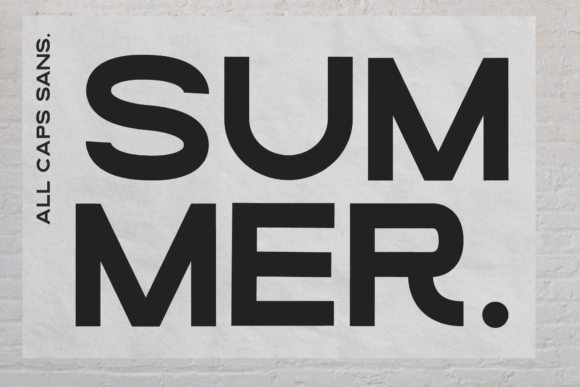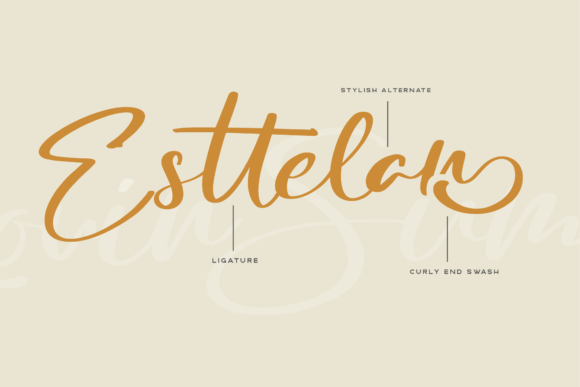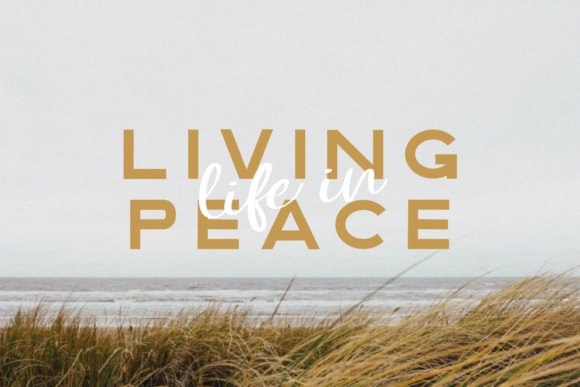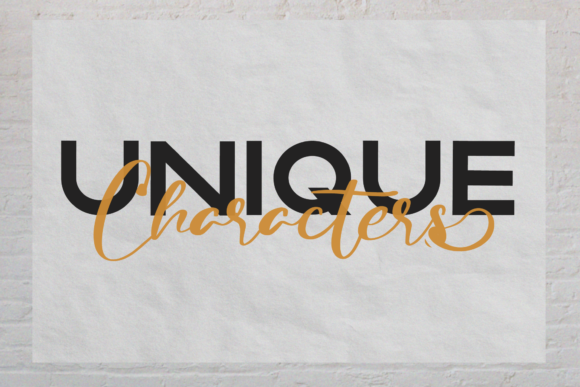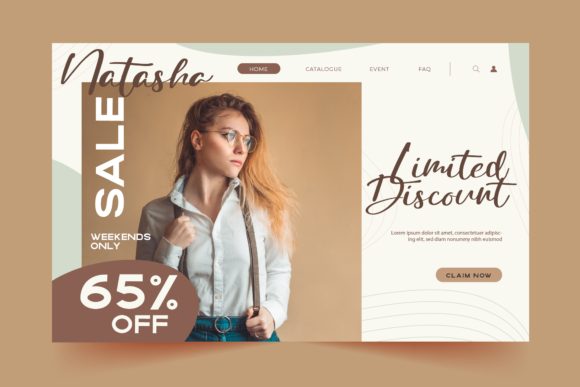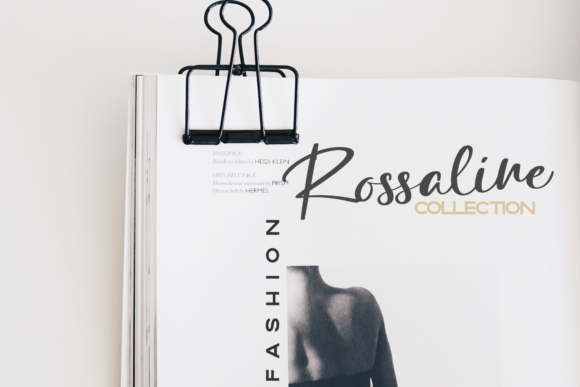
Introduction to Lovin Summer Font Font
Fonts play a crucial role in design, and the Lovin Summer Font font is a typeface that brings both character and versatility to any project. Whether you’re working on a branding project, a website, or a print design, the Lovin Summer Font font offers a unique style that can elevate your work.
Lovin Summer is a beautiful duo font.
It combines a gorgeous script with a stylish and strong sans serif This combination will add a sophisticated touch to your designs.
Key Features of Lovin Summer Font Font
Why Choose Lovin Summer Font Font?
The Lovin Summer Font font is more than just a typeface – it’s a design tool that helps you communicate your message with style and clarity. Its unique character set and versatile design make it suitable for a wide range of applications, from elegant invitations to bold headlines.
With its carefully crafted letterforms and balanced proportions, the Lovin Summer Font font ensures readability and visual appeal across all mediums.
What makes Lovin Summer Font font special?
The Lovin Summer Font font stands out with its unique design, exceptional readability, and versatility across various design applications.